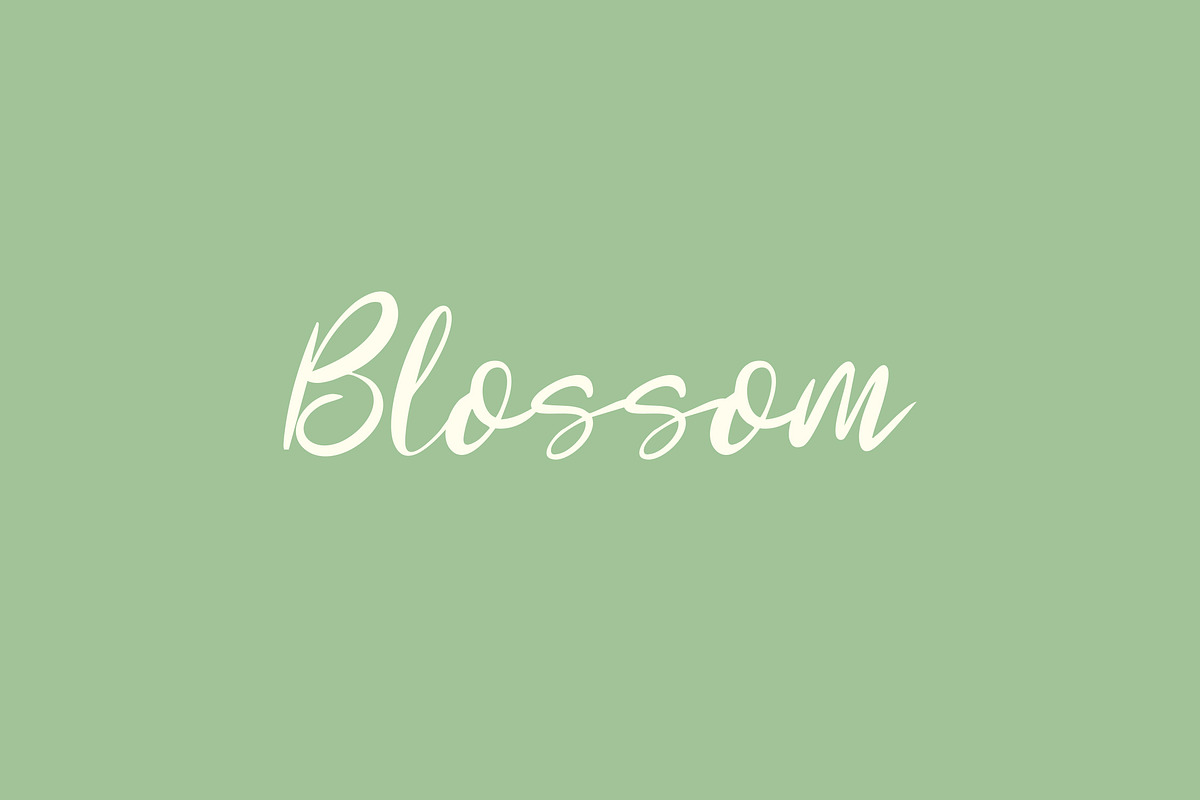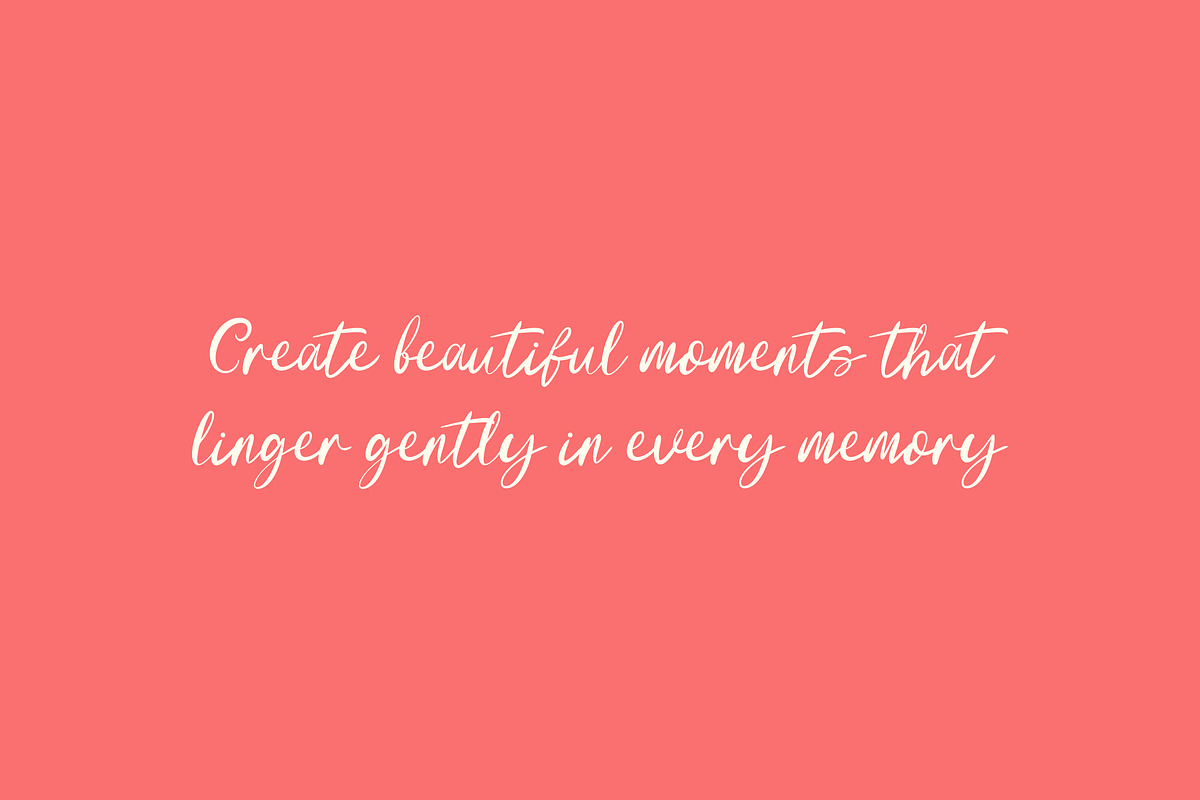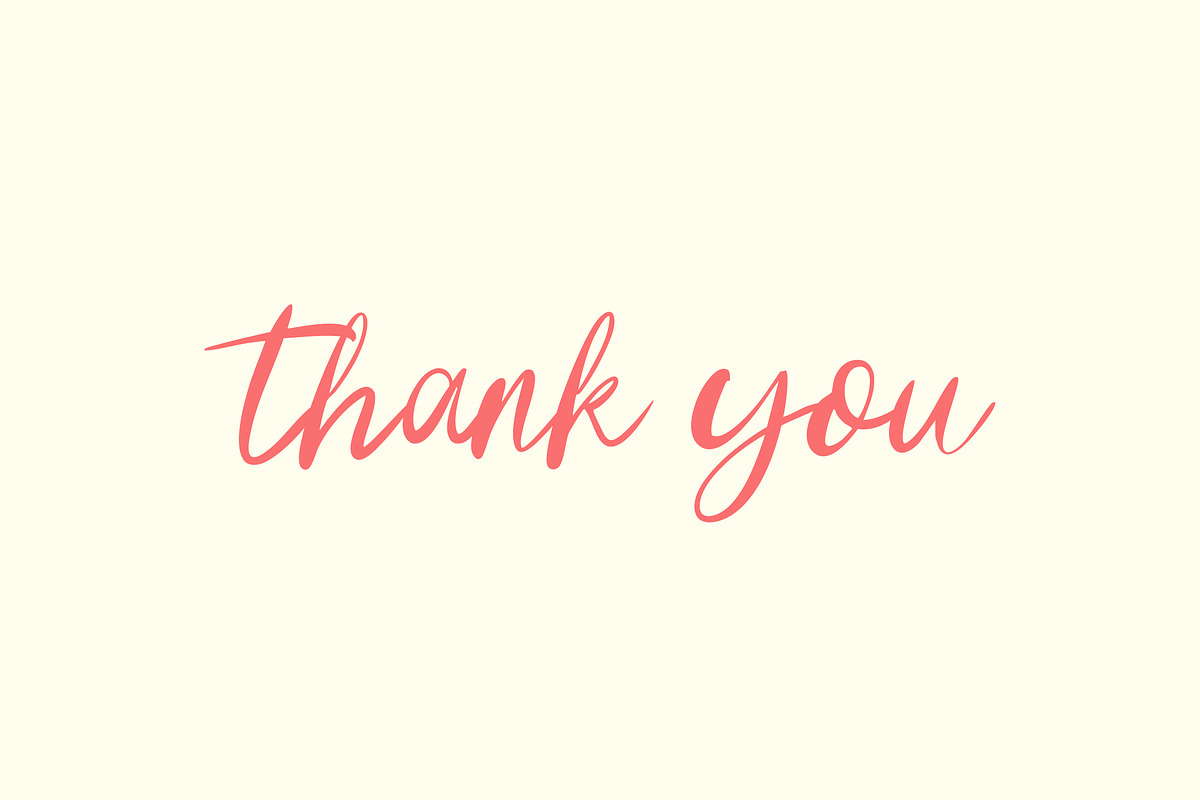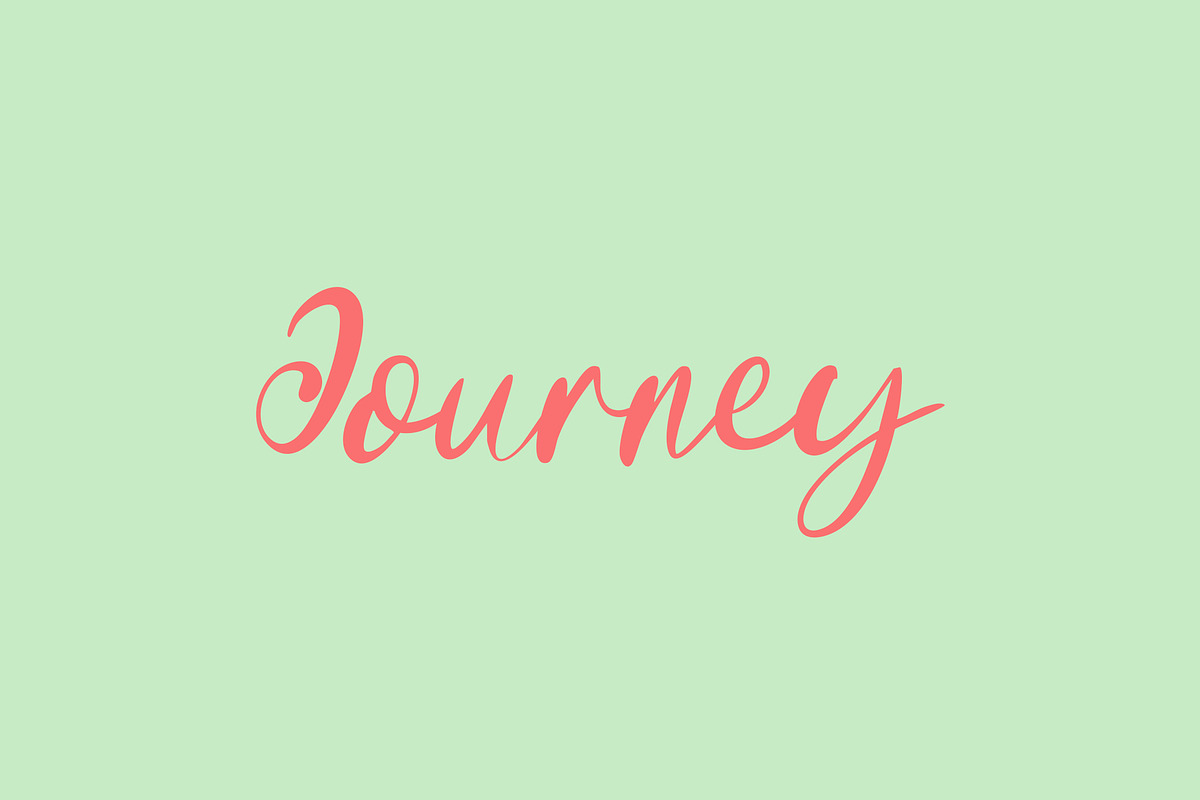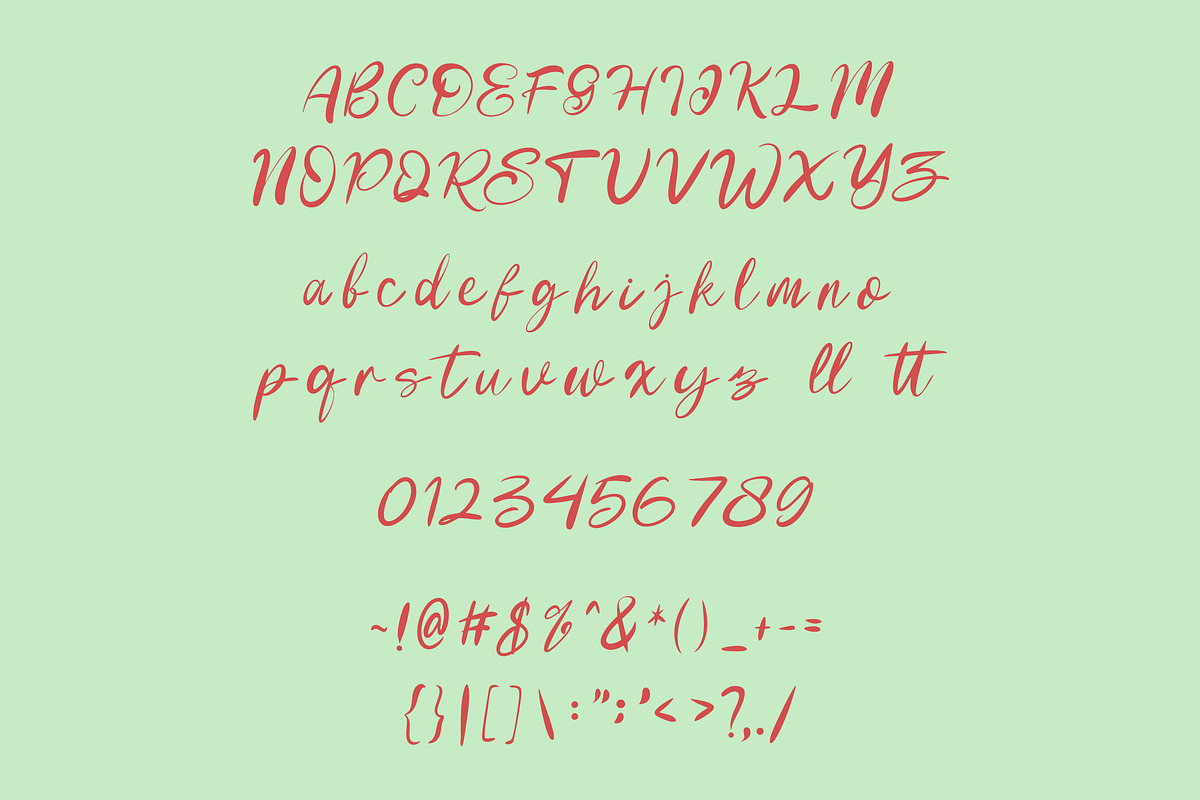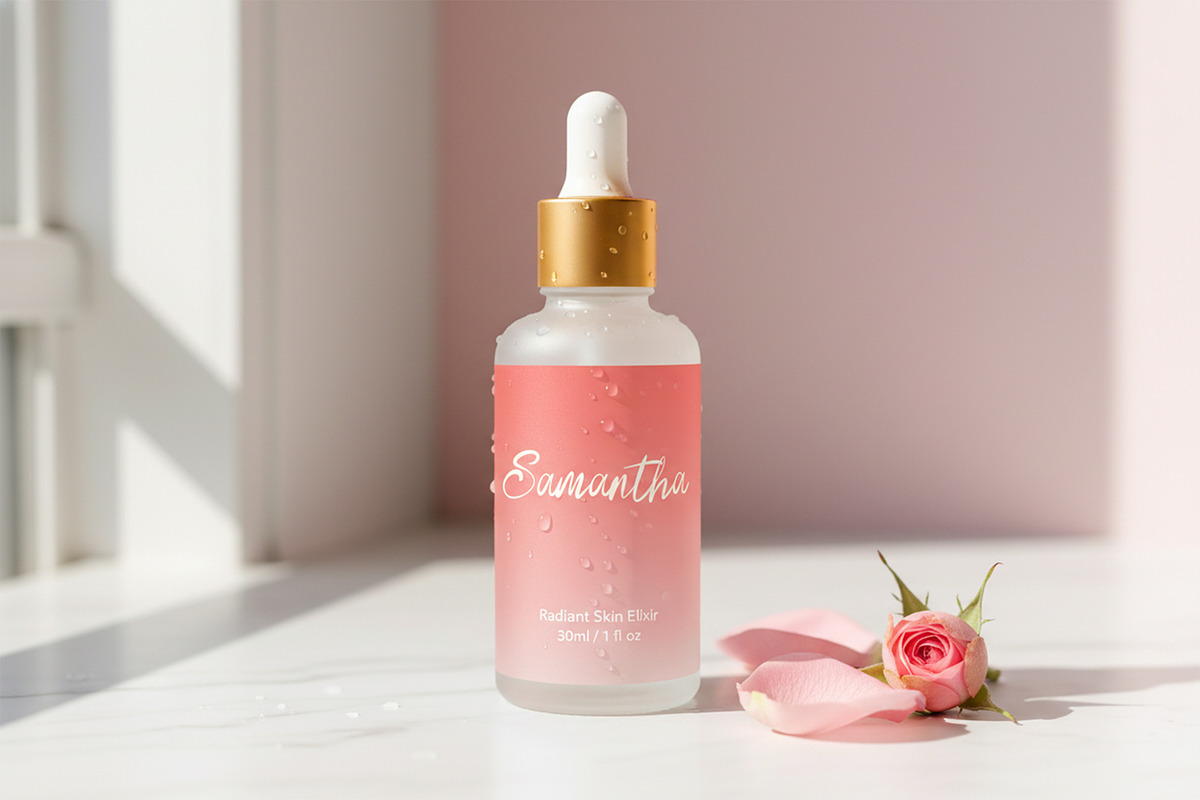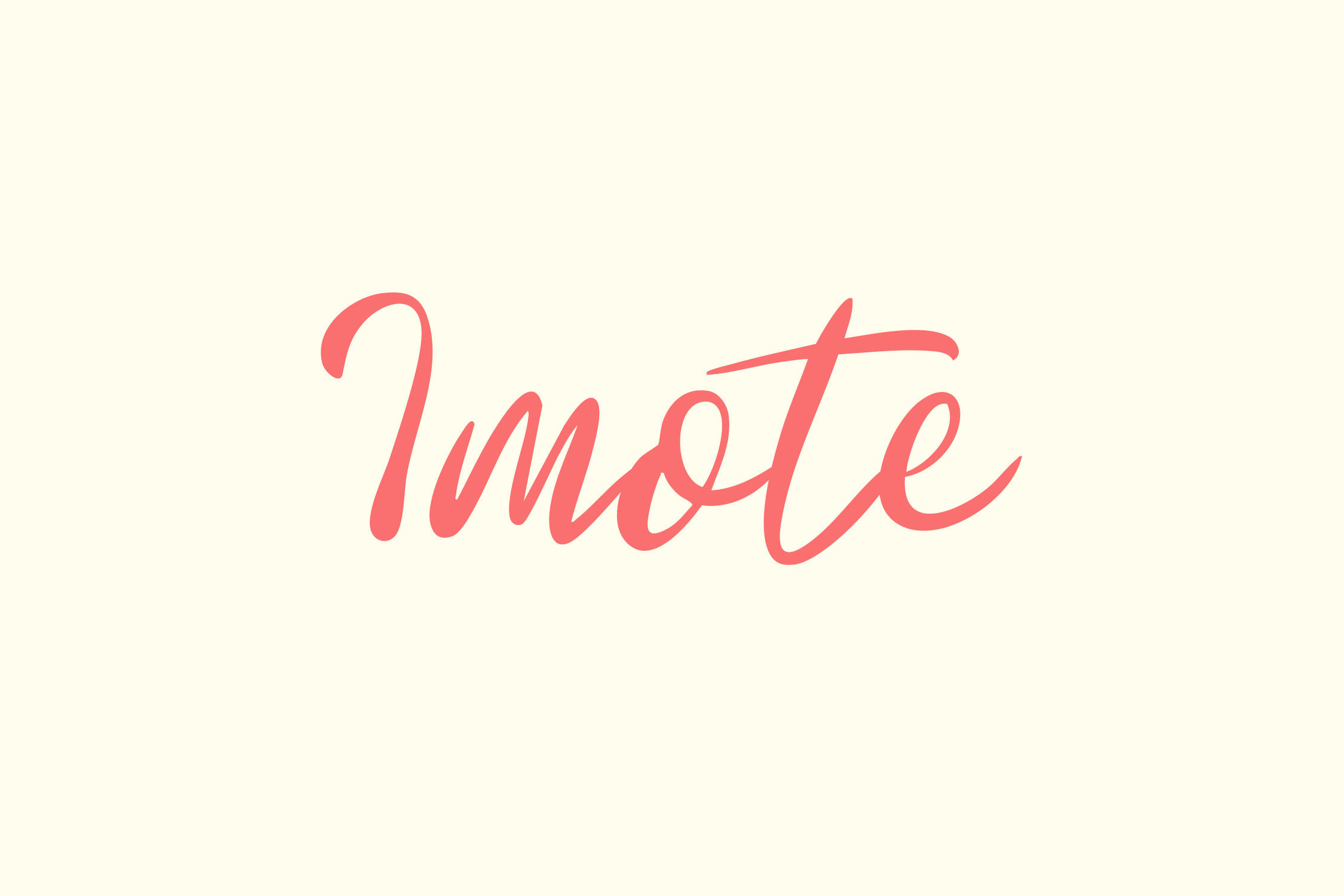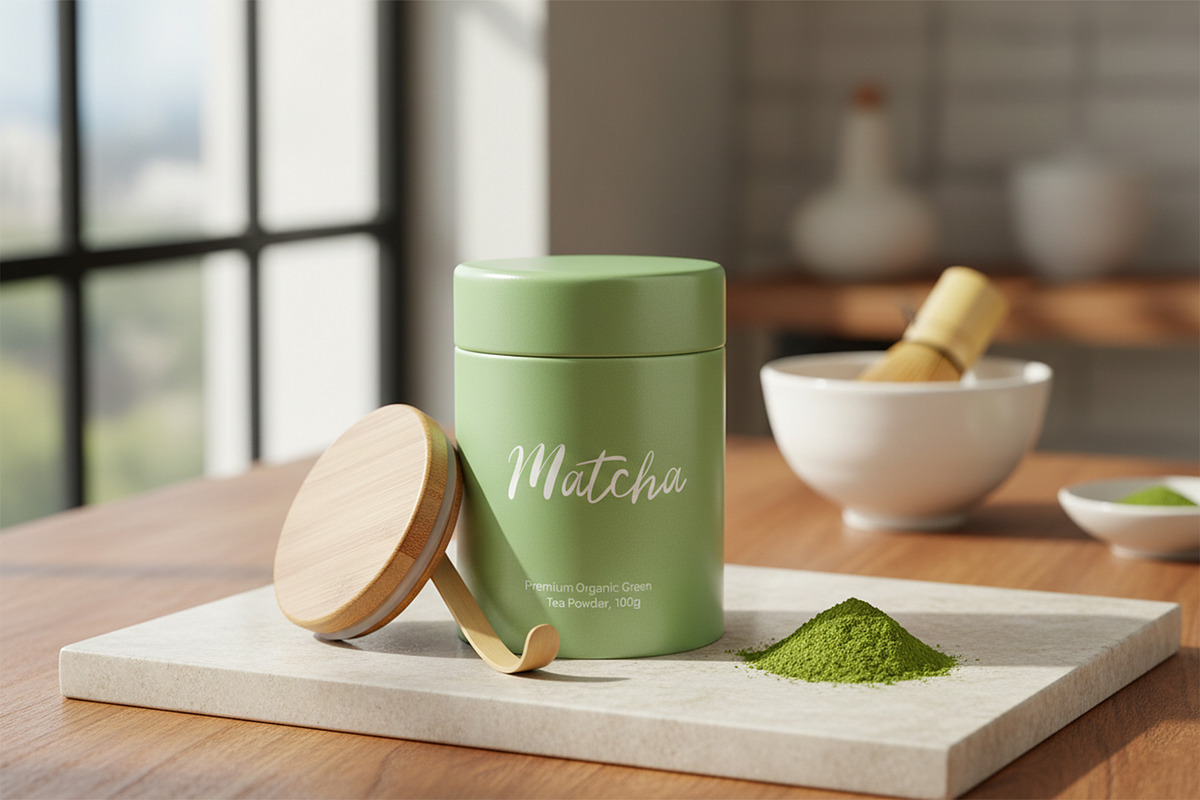
Imote Feminine Script Font
Imote Feminine Script Font is a graceful and stylish script typeface crafted to bring softness and elegance to your designs. With its smooth curves, delicate strokes, and beautifully flowing characters, Imote is perfect for branding, wedding stationery, beauty product packaging, social media posts, logos, and inspirational quotes. Its feminine charm creates a warm and luxurious feel, while the clean readability ensures it works effortlessly across both digital and print projects. Whether you’re building a romantic visual theme or elevating your brand identity, Imote offers a refined script look that instantly enhances any layout.